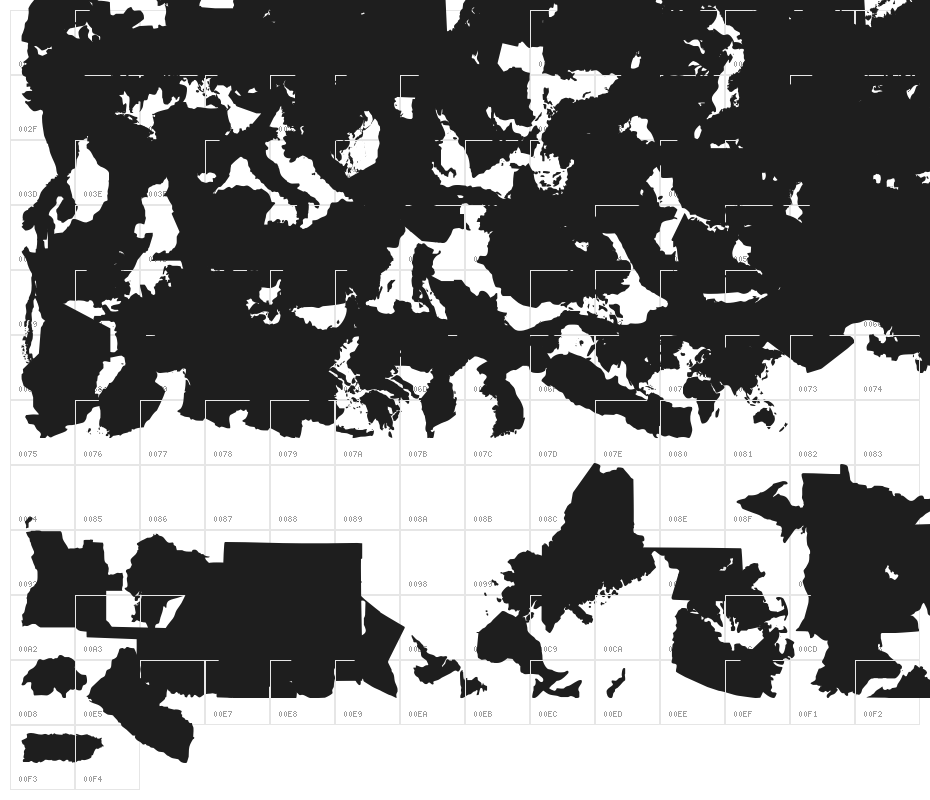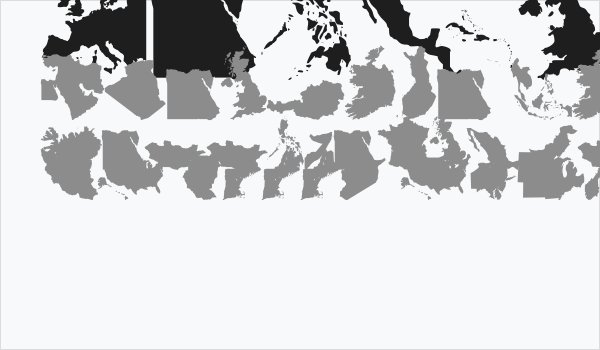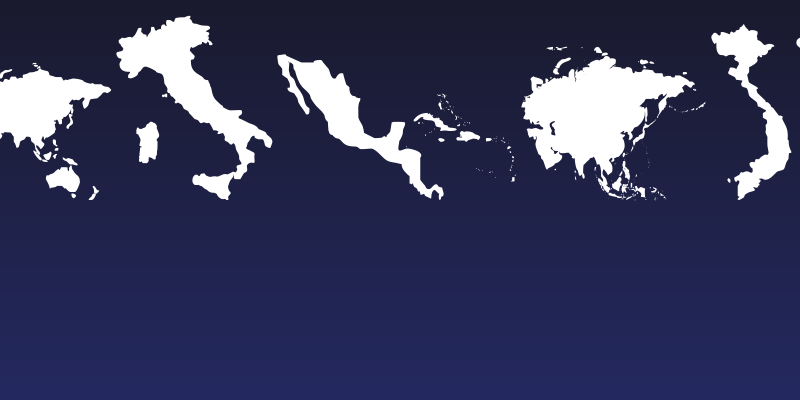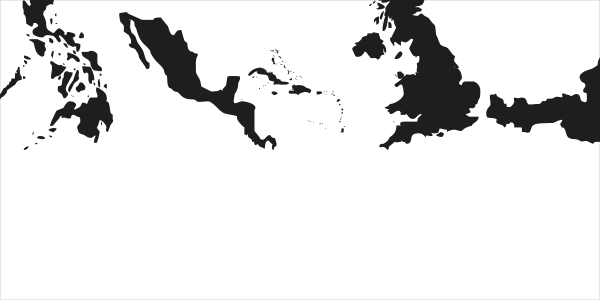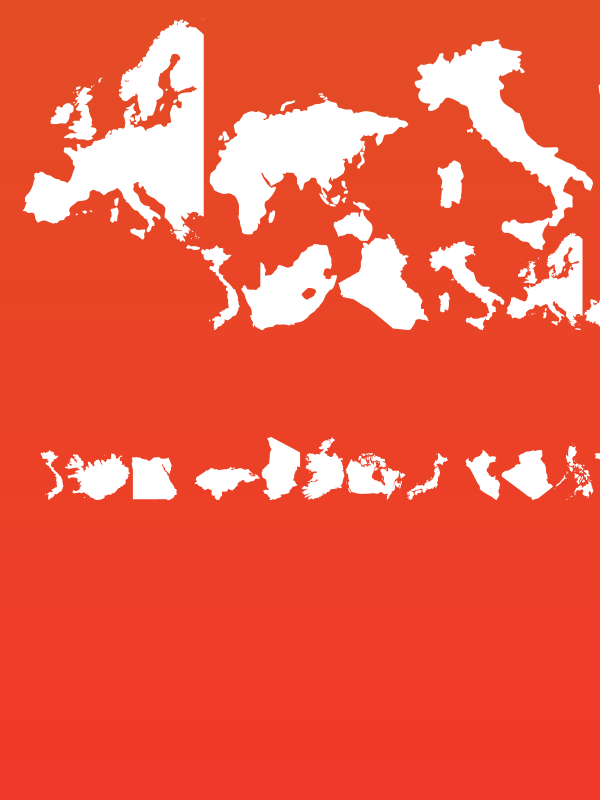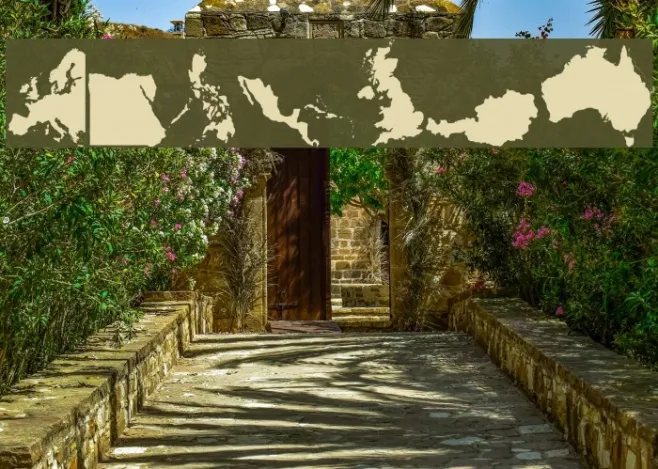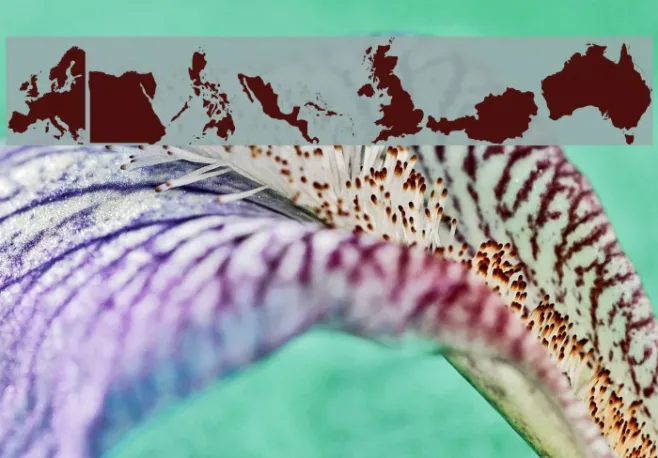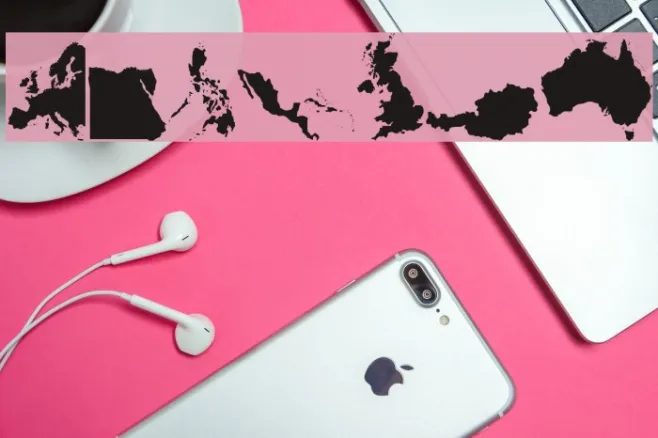
GeoBats Font
GeoBats Description
This is not a valid font. The image displays silhouettes of geographical shapes resembling country outlines rather than typographic characters. Each shape is distinct and does not correspond to any recognizable alphabet or numeric system. The design is more artistic and abstract, focusing on geographical representation rather than textual communication.